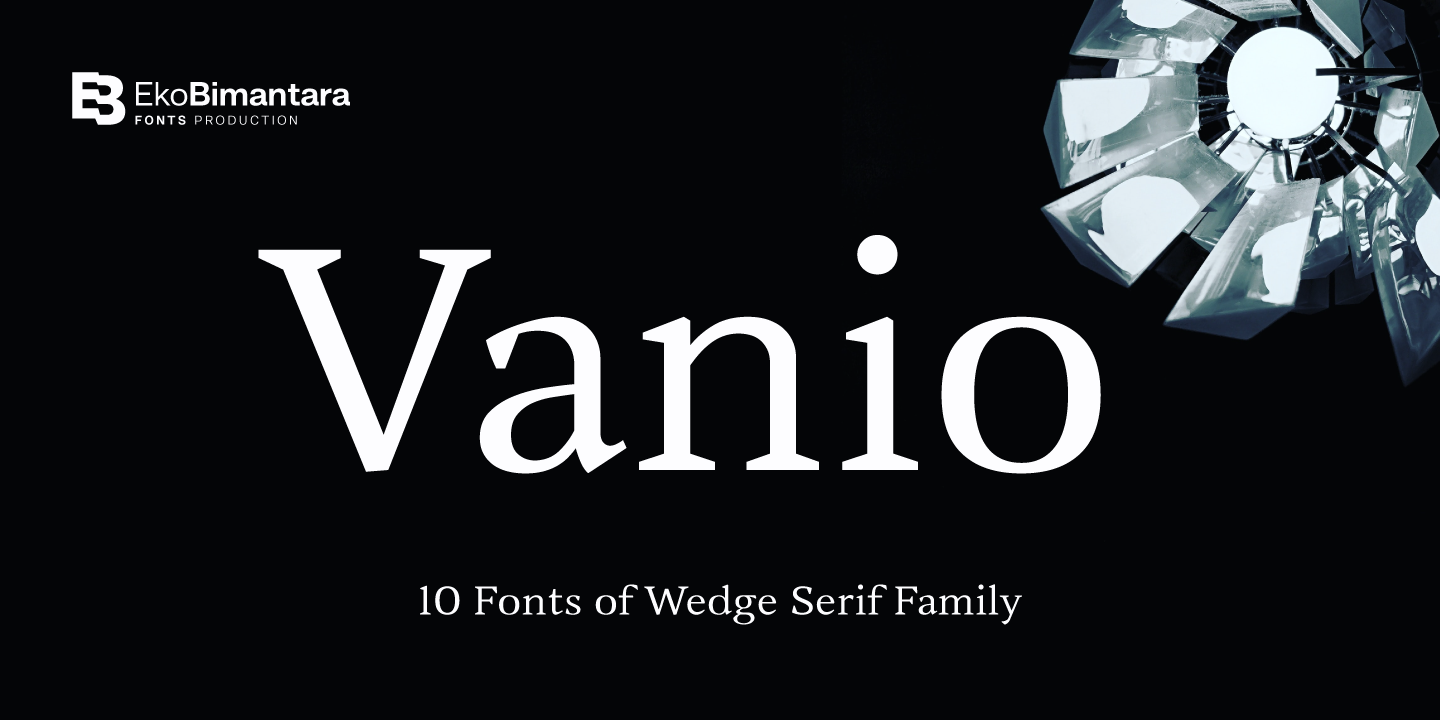
Vanio Font is perfect for modern tech branding, contemporary web interfaces, sleek product packaging, innovative startup identities, digital agency communications, futuristic design projects, cutting-edge marketing materials, and progressive business presentations. This sophisticated typeface excels in applications requiring contemporary elegance and technological precision that captures the essence of modern innovation and digital advancement through refined visual character.
What makes Vanio Font exciting is its perfect fusion of technological precision and contemporary elegance that creates instant recognition through intelligently crafted letterforms. The font features streamlined character construction with modern proportions and sophisticated styling that delivers exceptional functionality while maintaining distinctive visual appeal perfect for brands positioning themselves at the forefront of technological innovation and contemporary market leadership.
The Vanio Font family includes comprehensive weight options and modern variations with tech-inspired styling elements, offering designers complete tools for creating sophisticated contemporary compositions. The family provides consistent modern aesthetic with strategic progression for effective digital communications and innovative branding projects requiring genuine technological character and contemporary market appeal.
Vanio Font Free Download represents an exceptional choice for organizations seeking typography that embodies modern innovation and technological sophistication. Whether you're developing tech startup branding, digital product interfaces, contemporary marketing campaigns, or innovative business communications, this font provides the sophisticated character needed for establishing technological leadership and modern brand positioning.
The precisely engineered letterforms of Vanio Font ensure optimal performance across all digital platforms while maximizing contemporary appeal and technological precision, making it ideal for responsive web design, mobile applications, and modern brand communications. This versatile typeface combines technological innovation with contemporary design standards for outstanding performance in modern environments requiring authentic digital character and sophisticated technological presence.